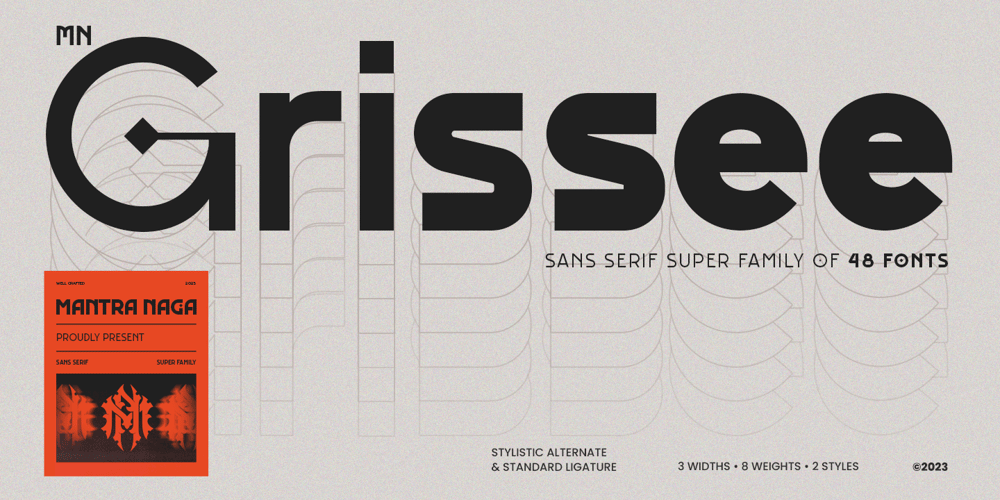
MN Grissee
MN Grissee font
MN Grissee Font Family was designed by Fredo Eka Pratama and published by Mantra Naga Studio. MN Grissee contains 48 styles and family package options. MN Grissee – a Sans Serif Super Family Font. This typeface has many alternatives with swashes that can make your lettering/logotype more attractive.This font is suitable for logos and various other formal forms, such as invitations, labels, logos, magazines, books, greeting/wedding cards, packaging, fashion, makeup, stationery, novels, labels, or advertising. This font is PUA encoded, which means you can access all of the glyphs and swashes with ease! 436 Glyphs 9 Opentype features 10 Ligatures, Stylistic Set and Swash 3 Widths (Condensed, Normal, Expanded) 8 Weights (Thin, Extra Light, Light, Regular, Medium, Semibold, Bold, Extrabold) 2 Styles (Regular & Italic) Support Multilingual for 89 languages We highly recommend using a program that supports the OpenType feature and the Glyphs pane like many Adobe and Corel Draw applications, so that you can view and access all variations of Glyphs. Thanks for your support of our product and using it in your project.